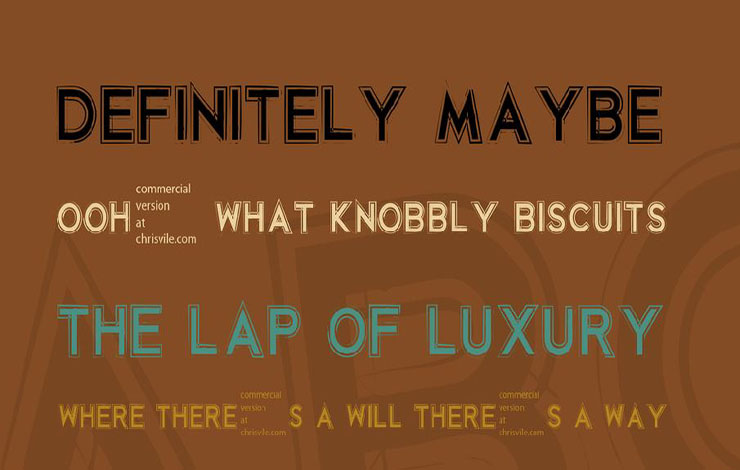
Korriban Font is a contoured trash typeface that features a distressed, grungy appearance with rough edges and an eroded texture. Designed by Chris Vile.
This gives it a distinctive, edgy look that works well for Halloween-themed designs, horror movies, or any project that requires a bold and unconventional style.
The Korriban font comes in a single style which includes uppercase and lowercase letters, numerals, and basic punctuation marks. And also contains 96 glyphs.
It is easy to read, despite its unique appearance, and can be used for a wide range of design projects, including logos, posters, book covers, and more.
| Font Name: | Korriban Font Family |
| Style: | Eroded, Display, Fancy |
| Font Designer: | Chris Vile |
It’s versatility and unconventional style make it a popular choice among graphic designers and artists who want to stand out from the crowd.
It is perfect for projects that require a bold and unconventional style, such as horror movies, retro designs, or anything that needs to make a statement.
With its unique design, you can create book covers, unique signs, special cards, t-shirt printing, cartoon posters, product designs, posters, flyers, manga series, social media posters, banners, flyers, titles, headers, special event cards as well as many other cool places.
Korriban Font supports 34 multi-languages.